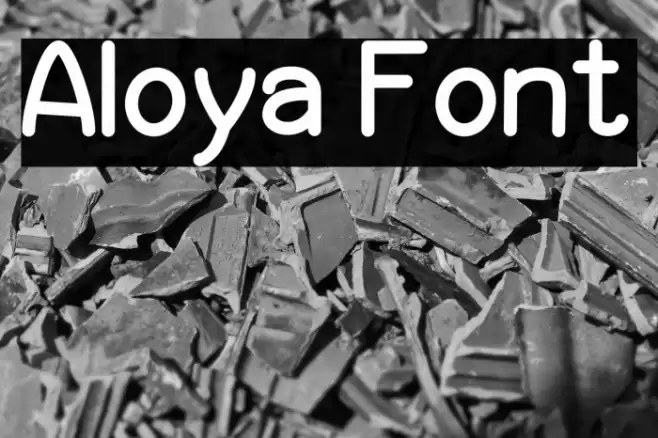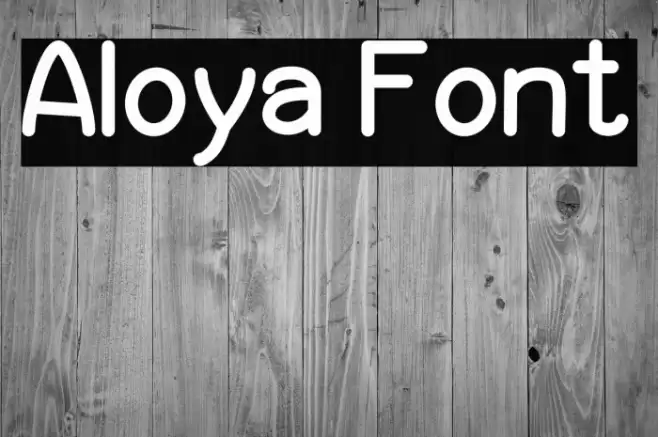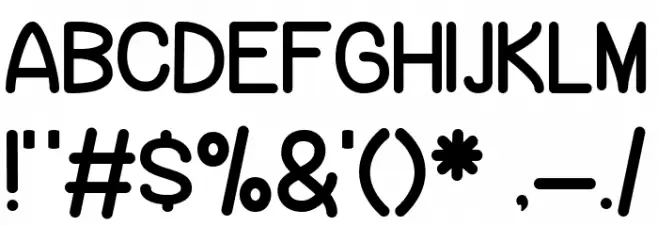
Aloya Font
Aloya Description
This font features a playful and rounded style, characterized by its smooth curves and friendly appearance. The letters are bold and have a consistent stroke width, giving it a uniform look. The uppercase and lowercase letters maintain a similar width, creating a harmonious balance. The numbers and special characters are designed to match the overall aesthetic, ensuring consistency across all elements. This font is easy to read and has a welcoming feel, making it suitable for a variety of applications.
A playful, rounded font with smooth curves and a friendly appearance from Regular fonts.
- Proposed Projects: Ideal for children's books, playful branding, casual invitations, and social media graphics.
- Overall Style: Playful
- Use Case: Headlines, Logos, Social Media